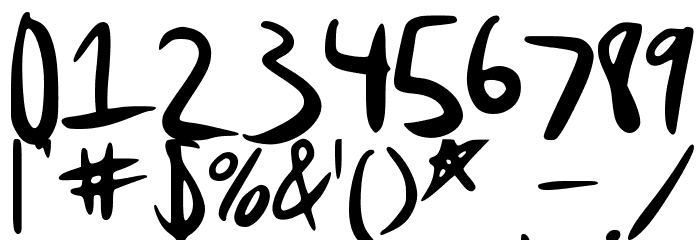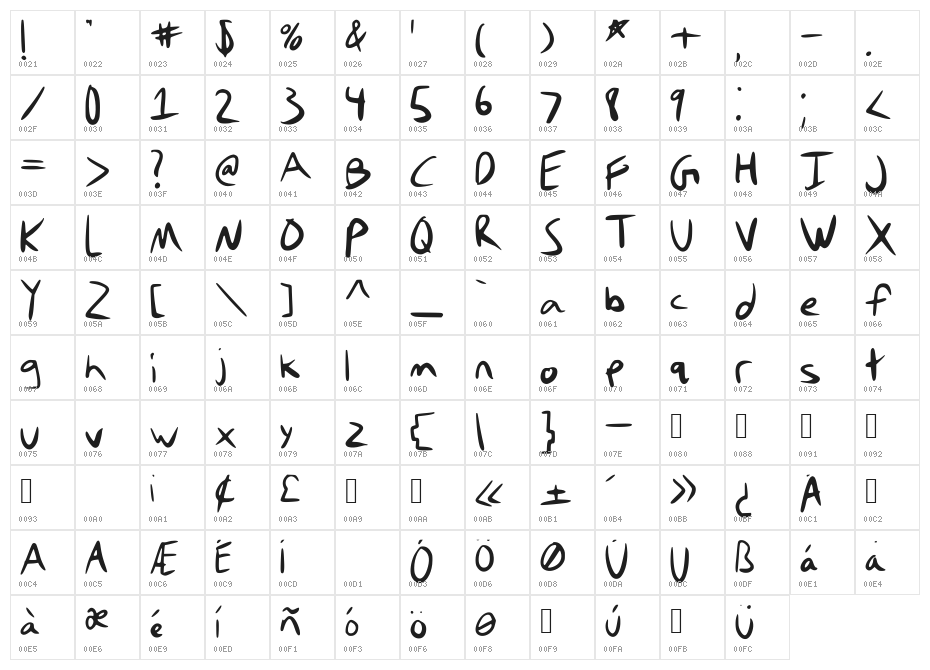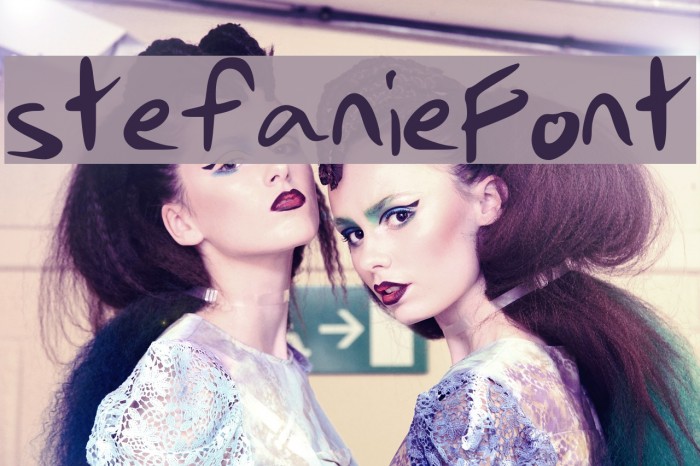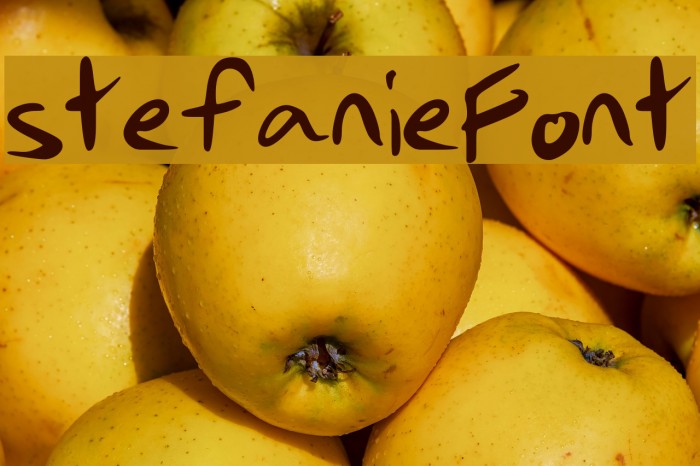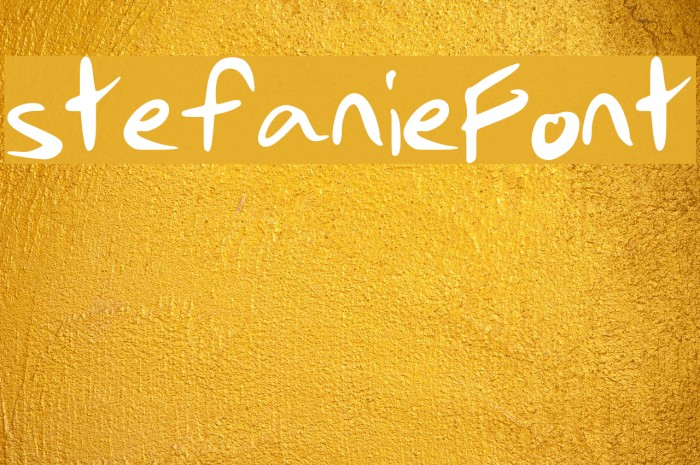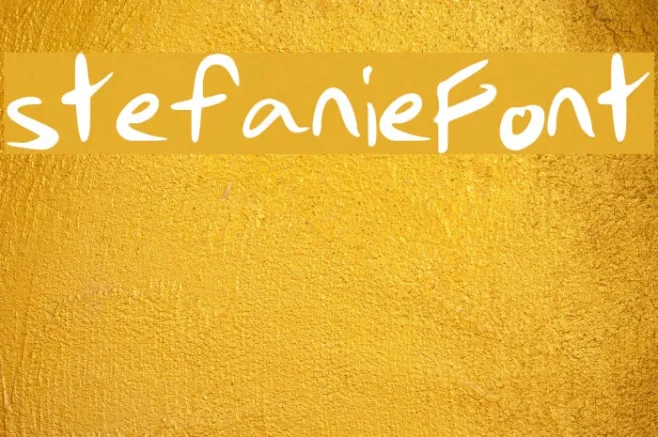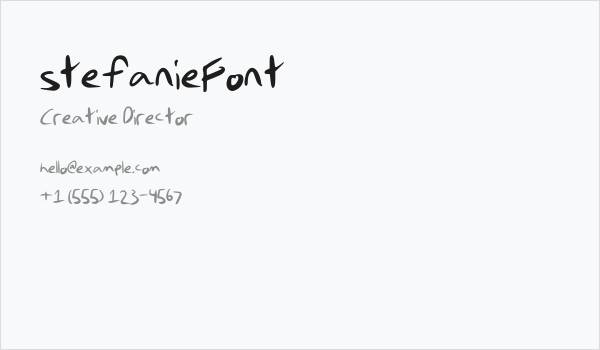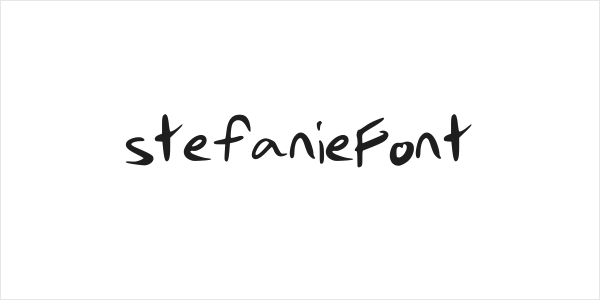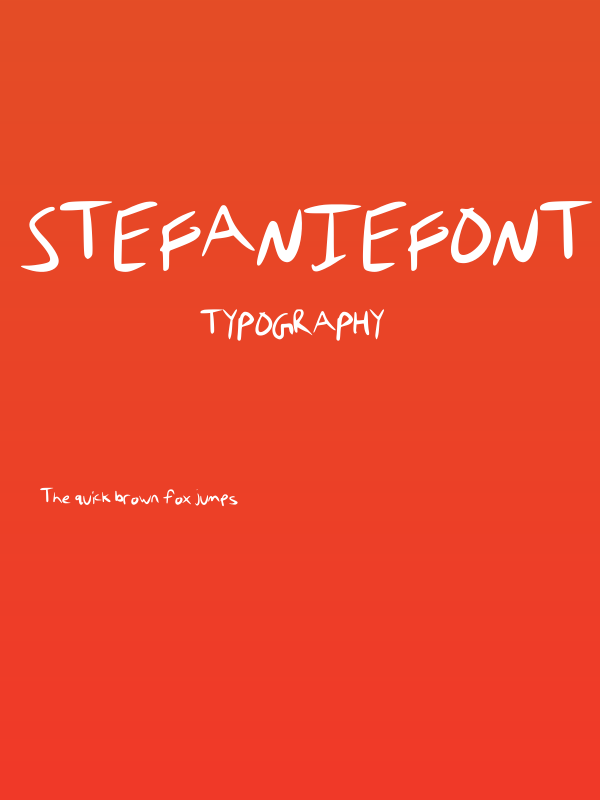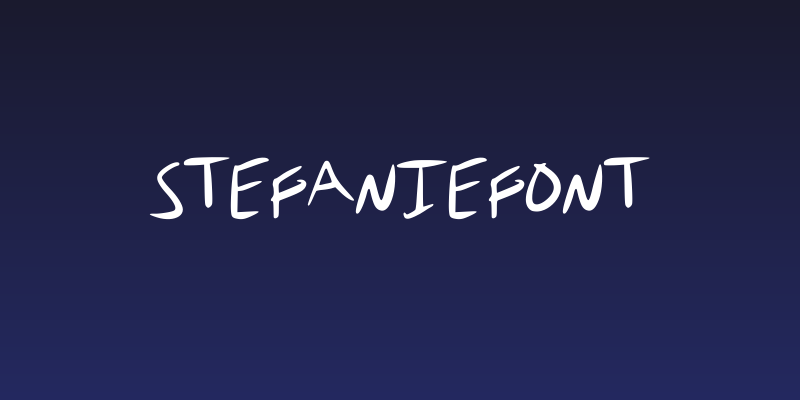
stefanieFont Font
stefanieFont Description
This font features a playful and informal handwritten style, characterized by its uneven strokes and casual appearance. The letters are slightly slanted, giving a dynamic and lively feel. The uppercase and lowercase letters maintain a consistent style, with rounded edges and varying line thickness that adds to its charm. The numerals and special characters follow the same whimsical design, making it suitable for projects that require a personal touch. The overall look is approachable and friendly, ideal for creative and informal settings.